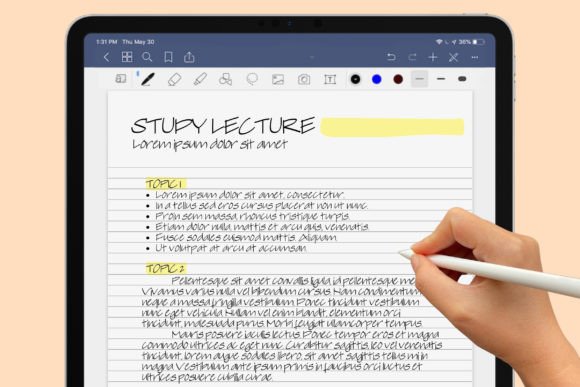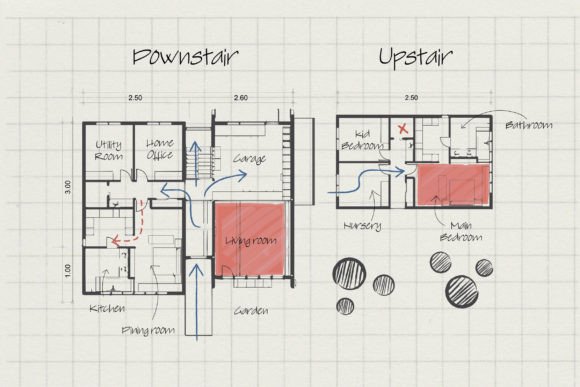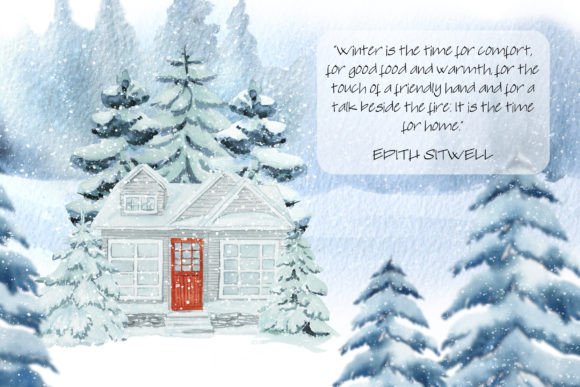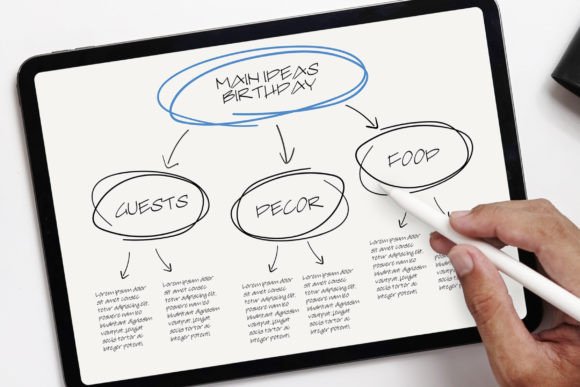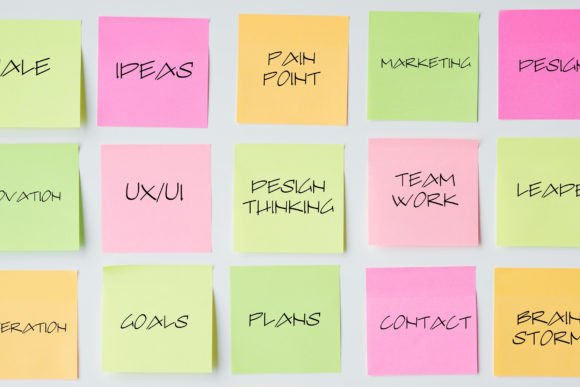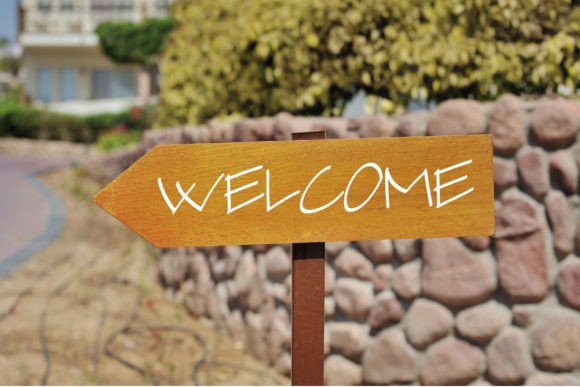
Introducing Happy Saturday Font: Elevate Your Designs with Architectural Flair
Are you a designer, architect, or crafty individual looking for a unique font to add a touch of personality to your projects? Look no further than the “Happy Saturday” font, an architectural handwriting font that brings a natural, effortless look to your designs. In this article, we’ll dive into the features and benefits of this versatile font, and explore its various applications in advertising, architecture, and beyond.
The Inspiration Behind Happy Saturday Font
The “Happy Saturday” font is designed to mirror the distinctive script of an architect’s handwriting. Its natural, flowing style is reminiscent of the way architects often jot down notes and ideas in their daily work. This font captures the essence of that creative, spontaneous feel, making it an excellent choice for designers and architects seeking to add a personal touch to their projects.
Key Features of Happy Saturday Font
- Architectural style: The font’s unique architectural style sets it apart from other handwriting fonts, making it perfect for designs that require a touch of sophistication and elegance.
- Attention-grabbing: The “Happy Saturday” font is designed to draw attention, making it an excellent choice for advertising materials, such as brochures, posters, and billboards.
- Versatile: This font is not limited to advertising and architecture; it’s also suitable for various other contexts, including note-taking, digital planners, Goodnotes, and handwritten notes.
Applications of Happy Saturday Font
The “Happy Saturday” font is an incredibly versatile tool that can be used in a wide range of applications. Here are some ideas to get you started:
- Advertising materials: Use the “Happy Saturday” font to create eye-catching headlines, slogans, and taglines for your advertising campaigns.
- Architectural designs: Add a touch of authenticity to your architectural projects with this font, perfect for creating building plans, renderings, and presentations.
- Note-taking and journaling: Bring a personal touch to your notes and journals with the “Happy Saturday” font, making your writing feel more creative and expressive.
- Digital planners and Goodnotes: Elevate your digital planners and Goodnotes with this beautiful font, creating a unique and engaging experience for users.
- Handwritten notes and letters: Use the “Happy Saturday” font to add a touch of elegance and sophistication to your handwritten notes and letters.
Benefits of Using Happy Saturday Font
So, why choose the “Happy Saturday” font for your designs? Here are just a few benefits:
- Unique style: The “Happy Saturday” font offers a distinctive, one-of-a-kind style that sets your designs apart from the rest.
- Ease of use: This font is easy to read and write, making it perfect for a wide range of applications.
- Flexibility: The “Happy Saturday” font is versatile and adaptable, suitable for both digital and print designs.
| Font Name | Happy Saturday Font |
In conclusion, the “Happy Saturday” font is an exceptional choice for designers, architects, and crafty individuals seeking to add a touch of personality and flair to their projects. Its unique architectural style, attention-grabbing features, and versatility make it an excellent tool for a wide range of applications. Whether you’re working on advertising materials, architectural designs, or simply looking for a beautiful font for note-taking and journaling, the “Happy Saturday” font is sure to impress.